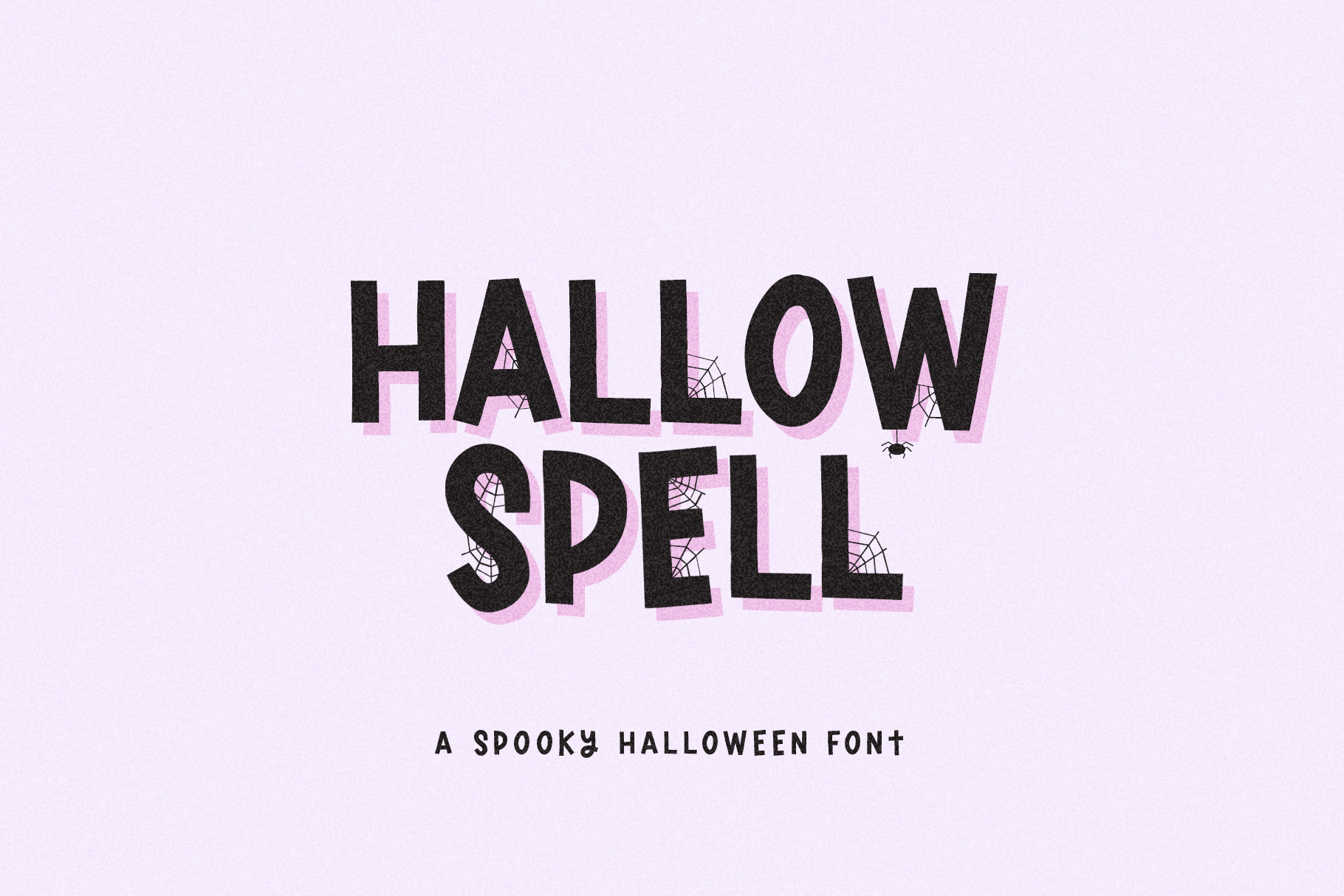
Hallow Spell spooky halloween font
Hallow Spell spooky halloween font will be perfect for halloween lettering, beautiful frame for your home, book covers, greeting cards, logos, marketing, magazines or anything that requires cute handwritten lettering :)